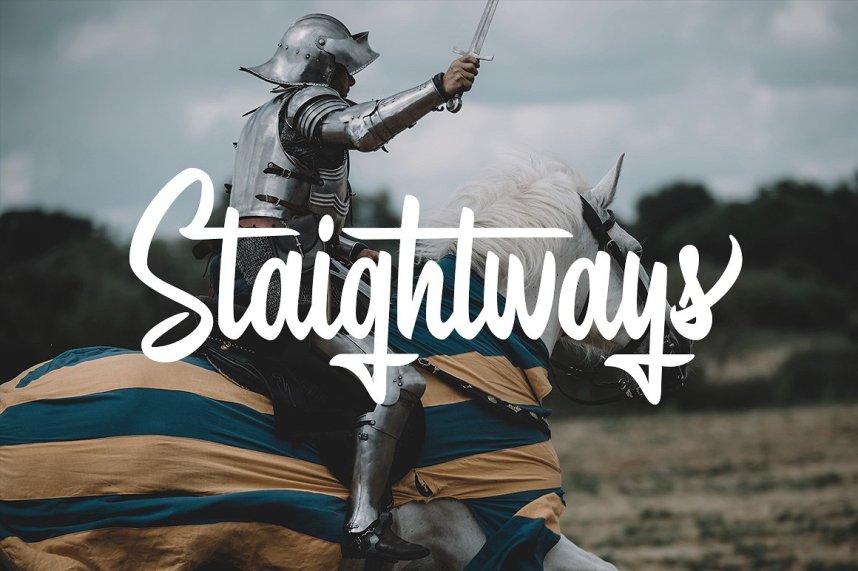
Southbeach Script Font
Hi Designer! Introducing Southbeach. It is designed and shared by Wacaksara Co. A handlettering styles brush font inspired by classic styles of paint stripped typography. It’s the perfect choice for personal branding projects, handwritten quotes, homeware designs, product packaging or simply as a modern & stylish text overlay to any background image.